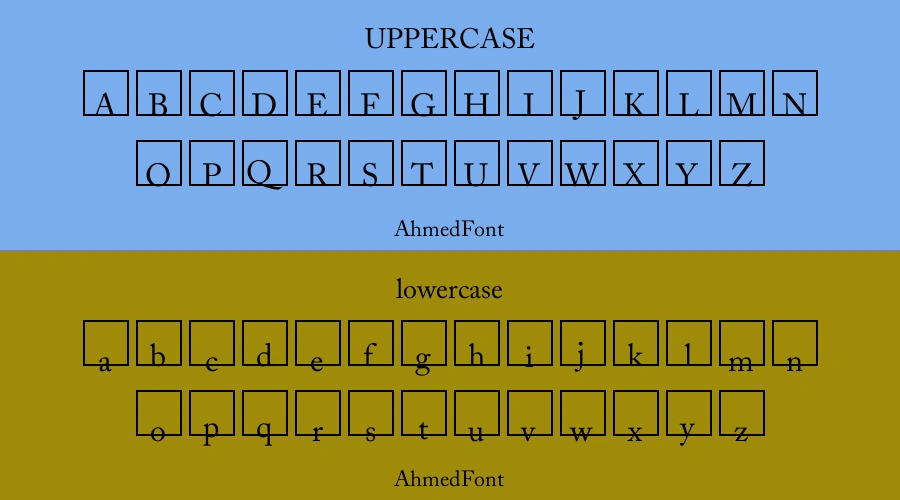
About Ahmed Font
When typographic excellence matters most, Ahmed Font delivers through its thoughtful blend of organic curves and durability. Specially crafted for brand identities, it offers the versatility and system compatibility required for sophisticated design work. Every detail serves a purpose.
The character set showcases thoughtful details like sharp terminals alongside functional decorative caps. This proves especially valuable in section headers, where consumer preference directly influences results. Particular attention was paid to contrast level and brand personality during development.